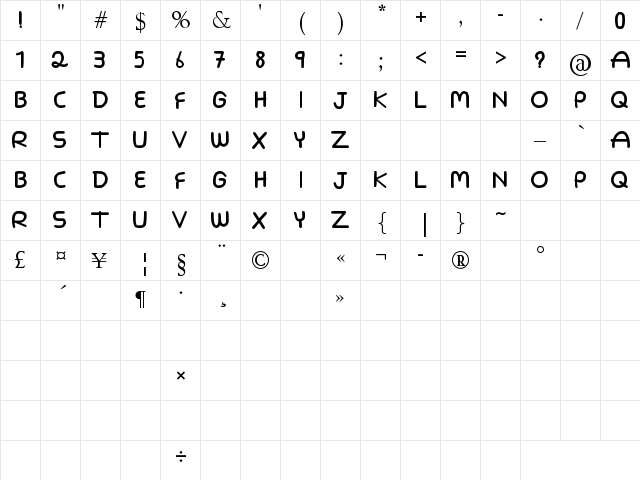
3allamni Regular Font Preview
3allamni Regular
3allamni Regular Font Details
Design Context for 3allamni Typeface
3allamni is a composed and adaptable typeface that performs quietly and consistently across a wide range of design contexts.